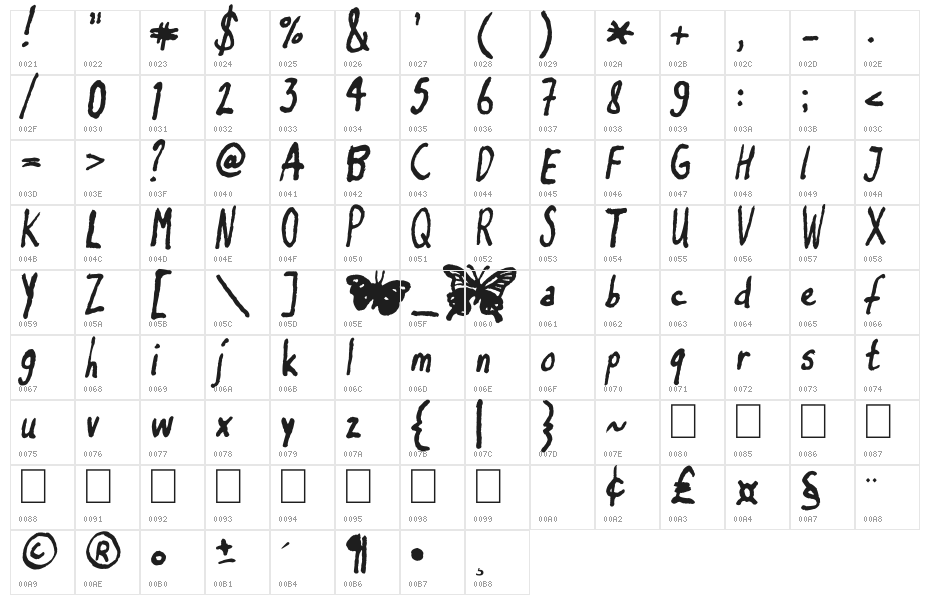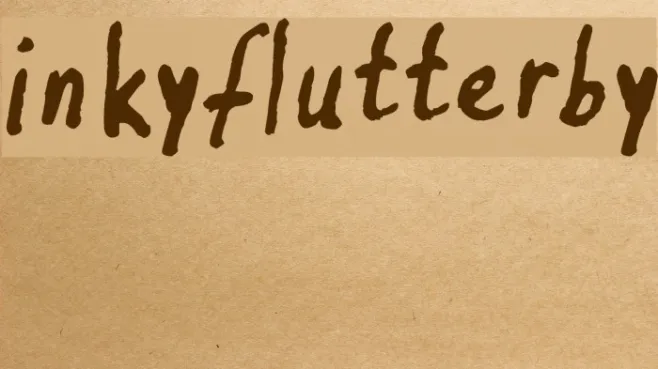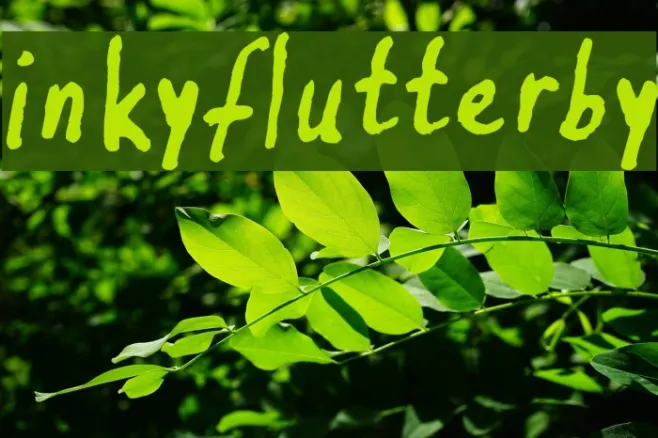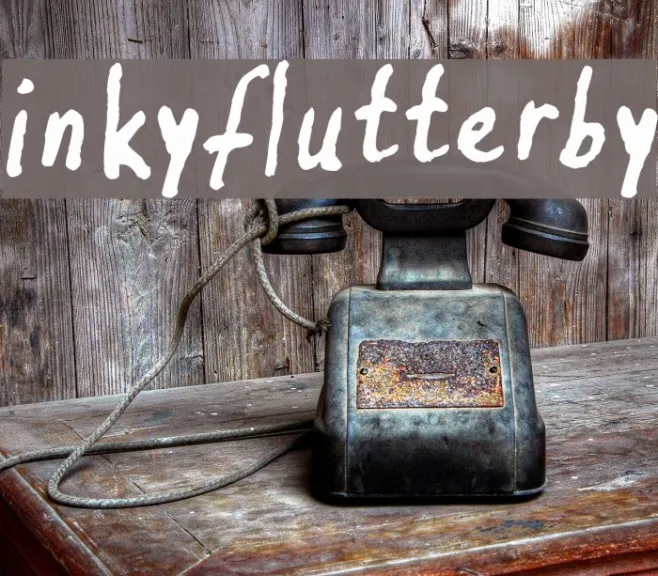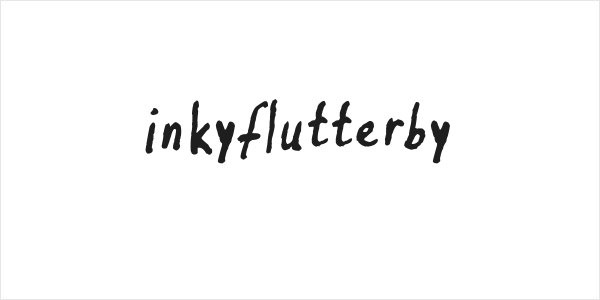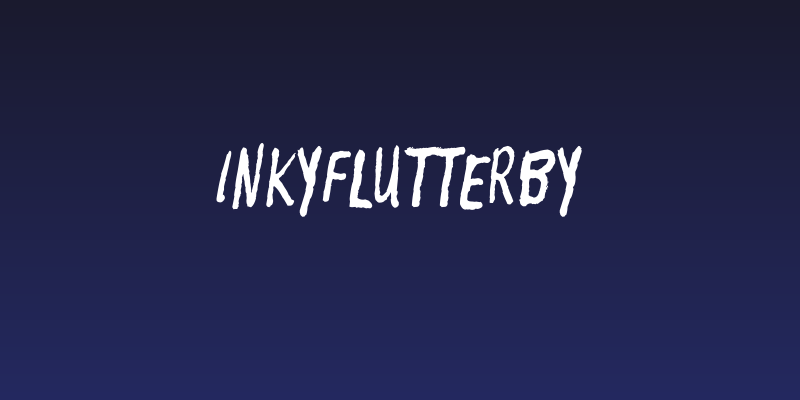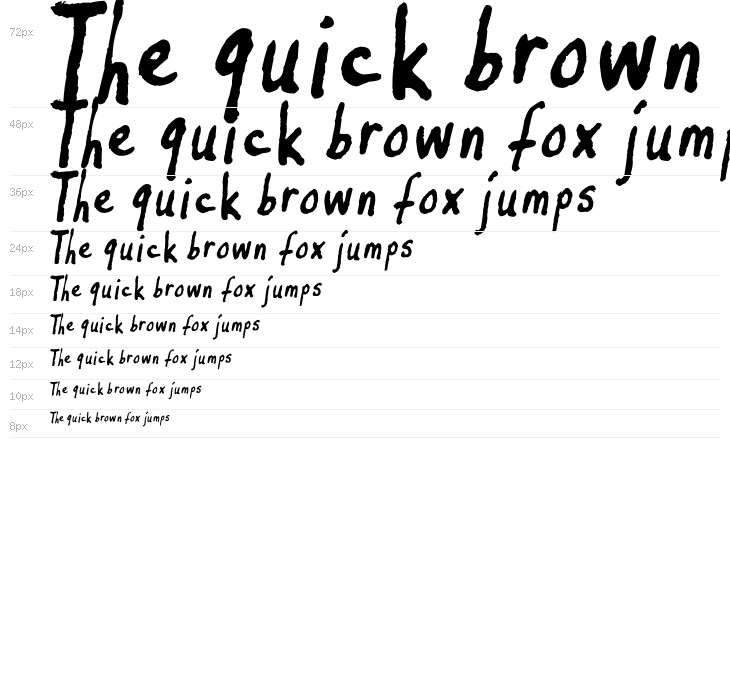
inkyflutterby Font
inkyflutterby Description
This font features a bold, hand-drawn style with a playful and artistic flair. The letters are uneven and slightly irregular, giving a sense of spontaneity and creativity. The strokes are thick and varied, adding a dynamic and energetic feel. The uppercase and lowercase letters maintain a consistent style, with rounded edges and a slightly slanted orientation. Numbers and special characters follow the same whimsical design, making the font suitable for projects that require a personal touch. The overall appearance is informal and expressive, ideal for capturing attention and conveying a sense of fun.
| Proposed Projects | Ideal for children's books, creative posters, artistic branding, and casual invitations. |